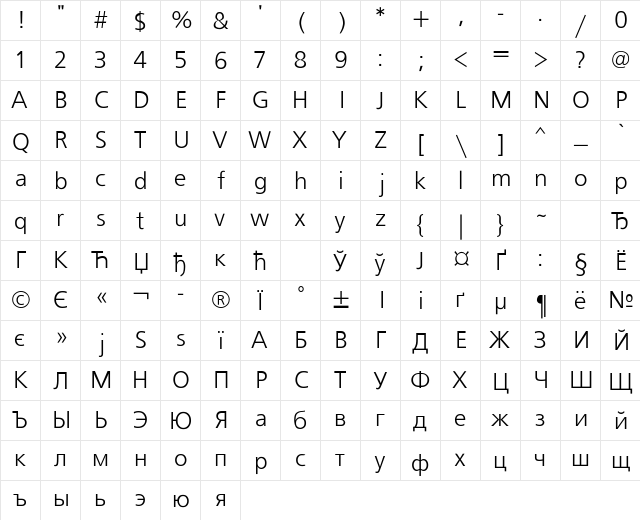
FreeSet Regular
Design Context for FreeSet Typeface
FreeSet is a composed and adaptable typeface that performs quietly and consistently across a wide range of design contexts.